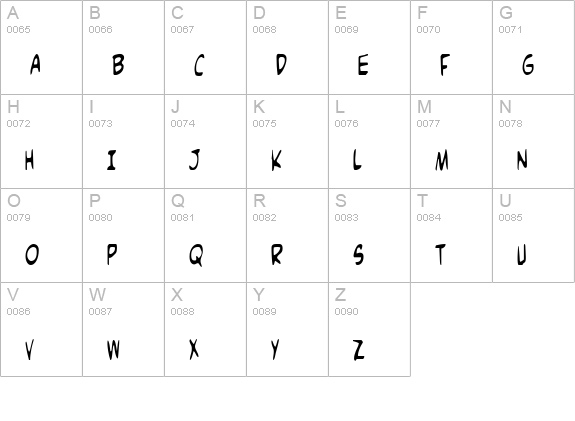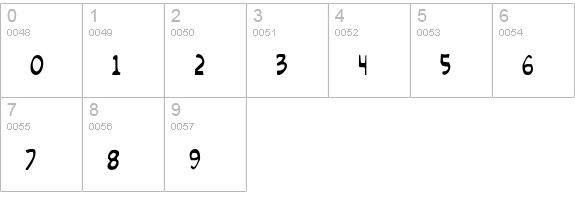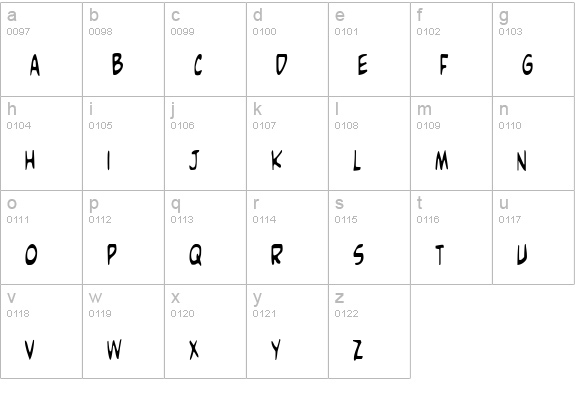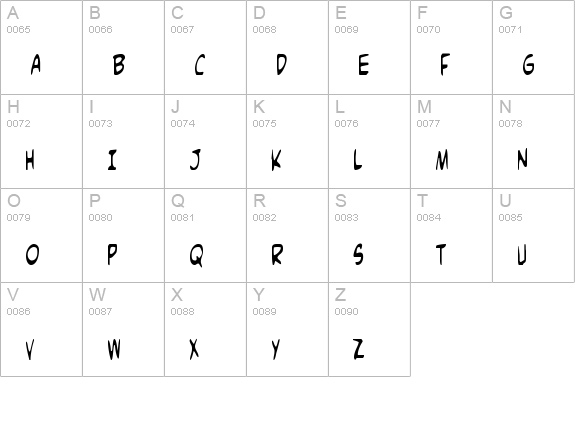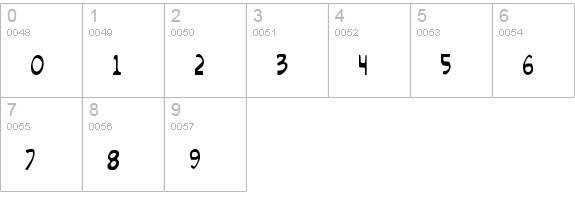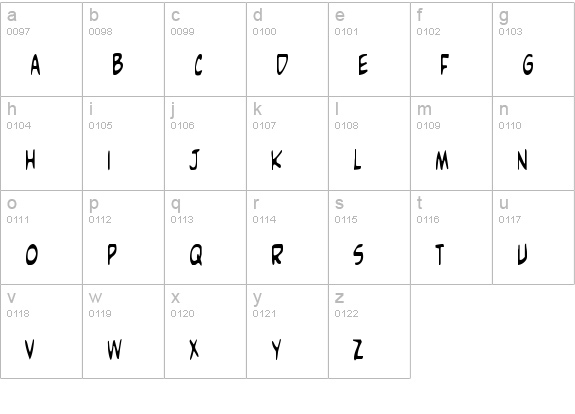
Comic Book Commando Cond Font Details
Comic Book Commando Cond is a comfortable, highly readable, condensed-width variant in the Comic typeface family \xE2\x80\x94 well suited to long-form body text, articles, and editorial content.
Comic Book Commando Cond font is a dynamic and bold typeface that is perfect for creating eye-catching comic book-style designs. With its strong lines and distinctive look, this font exudes a sense of action and excitement. Whether you're designing posters, logos, or comic book covers, Comic Book Commando Cond will add a powerful touch to your project. Best of all, Comic Book Commando Cond font is completely free to download at FontsMarket.com. This means you can easily access this fantastic font and use it in your designs without any cost. Don't miss out on this opportunity to elevate your projects with the dynamic and energetic Comic Book Commando Cond font!